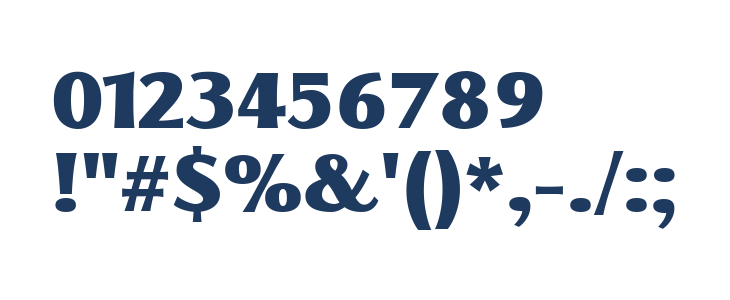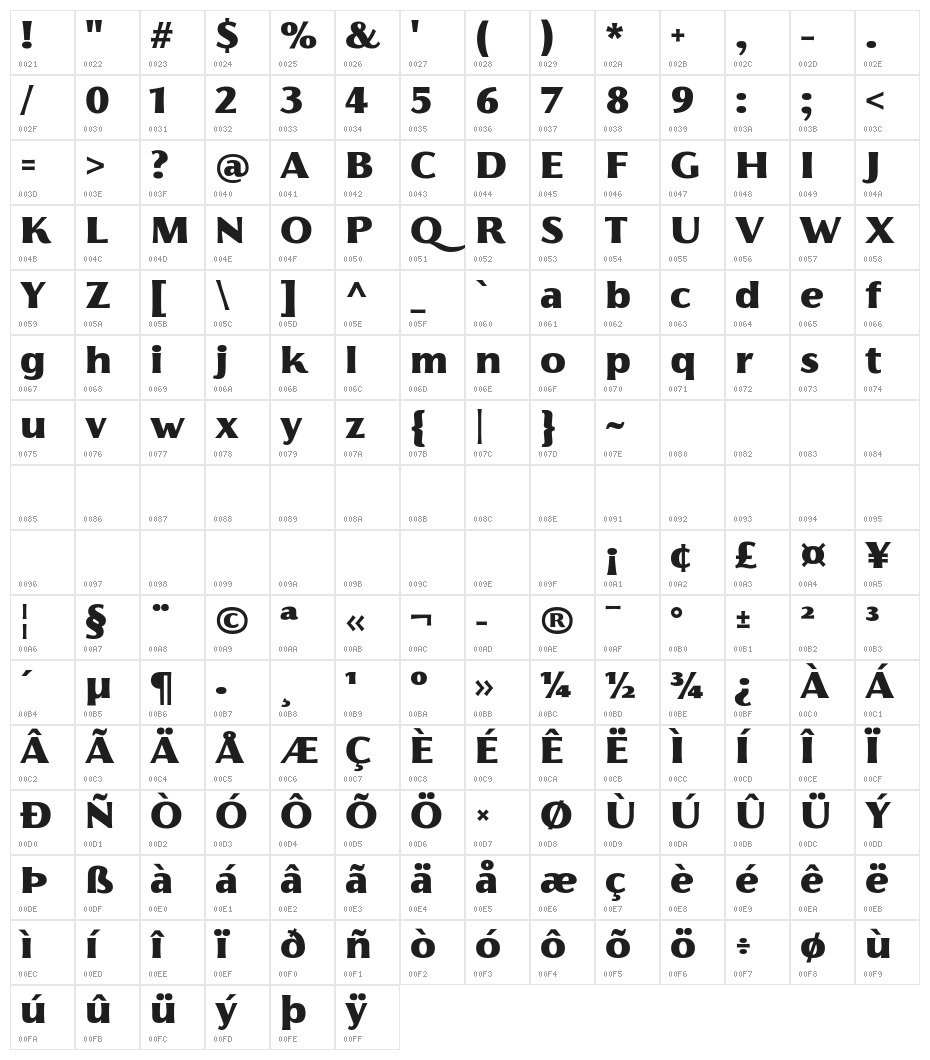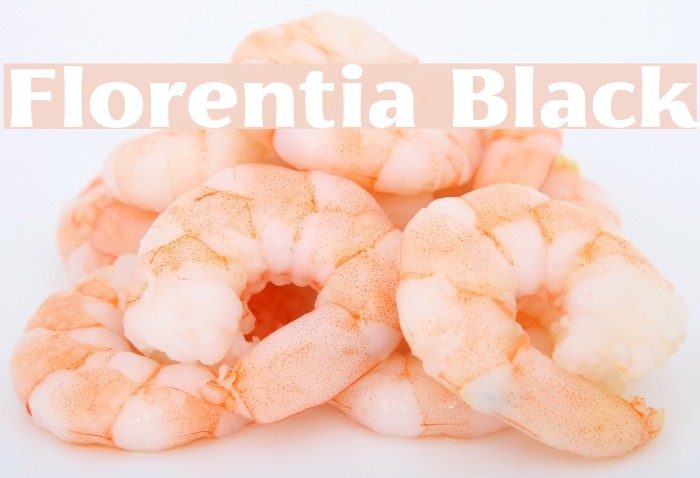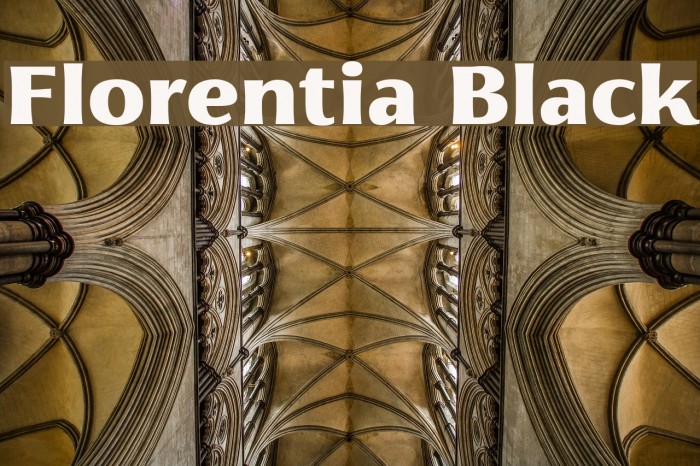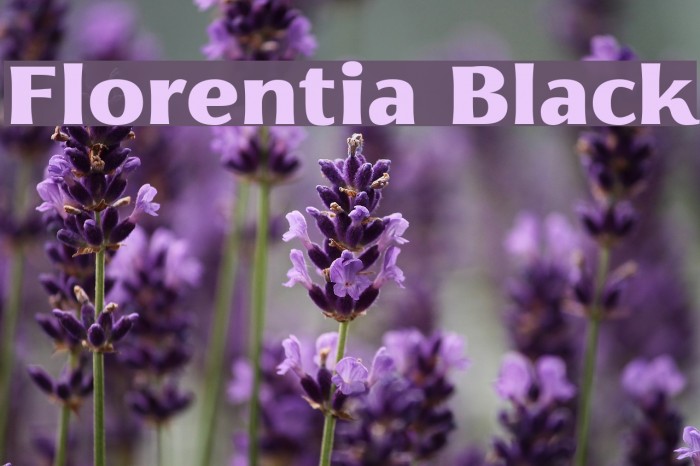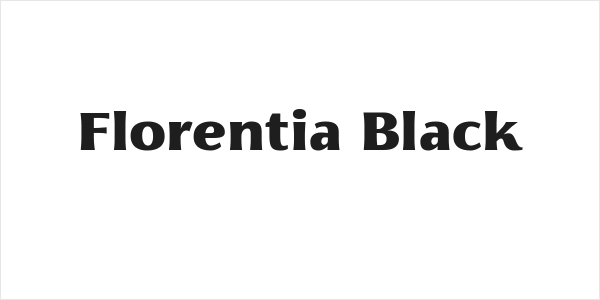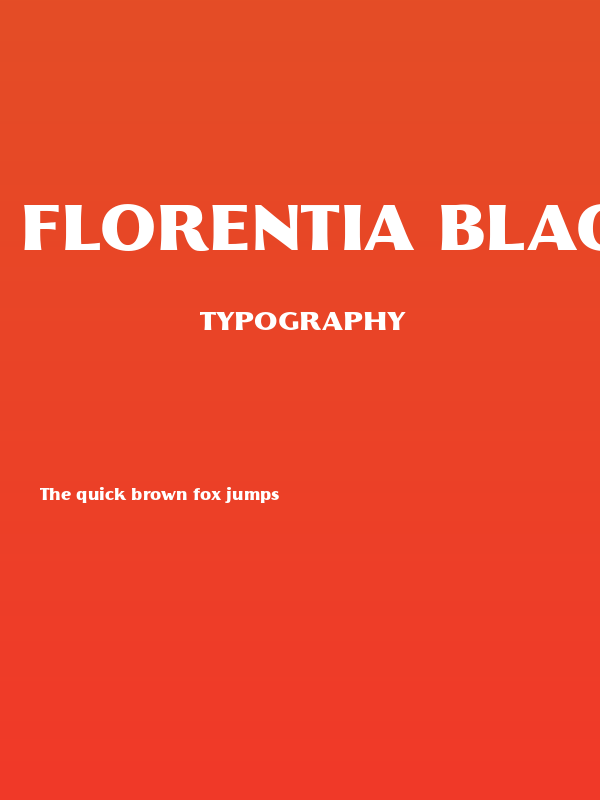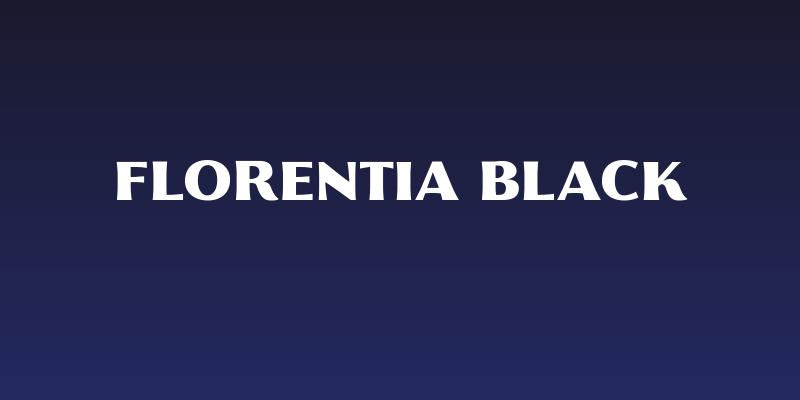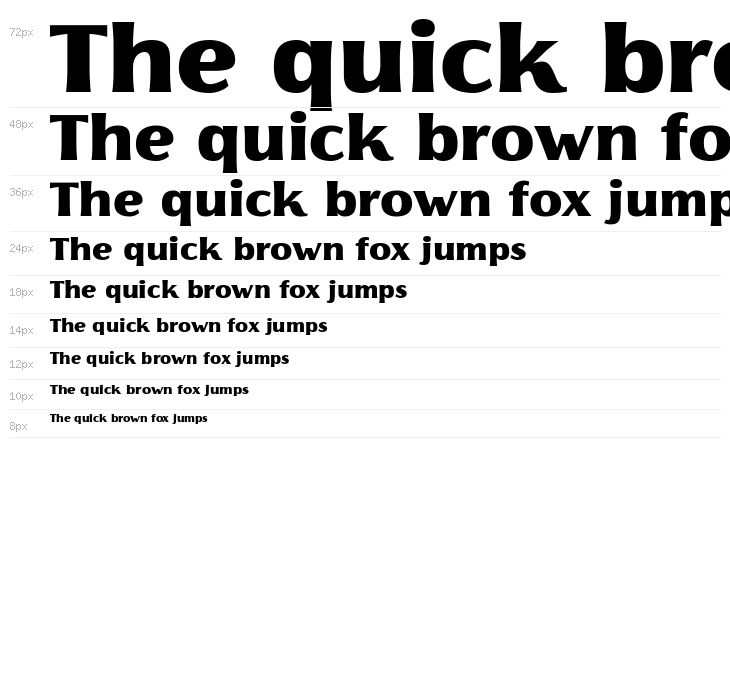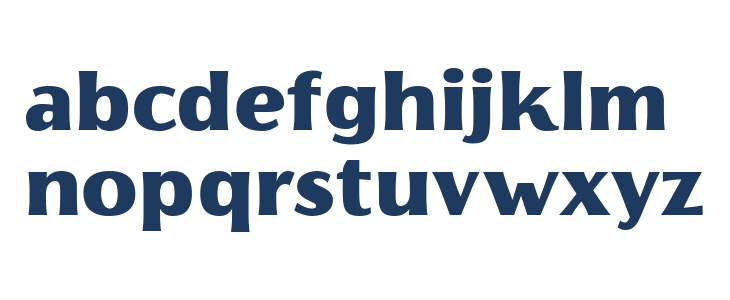
Florentia Black Font
Florentia Black Description
This font exhibits a bold and assertive style with strong, thick strokes that convey a sense of power and confidence. The characters are well-defined with a slight curvature, adding a touch of elegance to the overall appearance. The uppercase letters are particularly striking, with a commanding presence that makes them ideal for headlines or titles. The lowercase letters maintain a consistent weight, ensuring readability while still retaining the bold aesthetic. Numbers and special characters are equally robust, making this font versatile for various design needs.
| Proposed Projects | Ideal for branding, headlines, posters, and any project requiring a strong visual impact. |